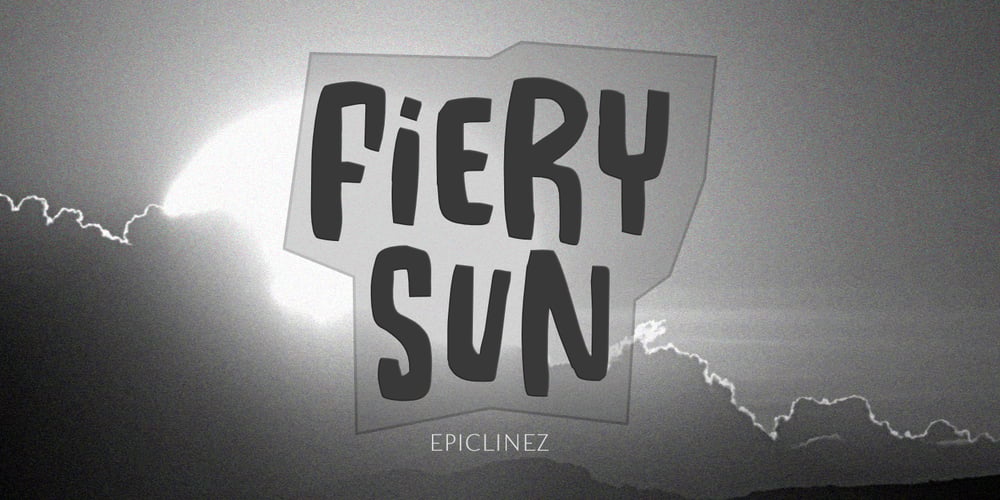
Fiery Sun
Fiery Sun font
Fiery Sun Font Family was designed by Aldy Sidik and published by Epiclinez. Fiery Sun contains 1 styles and family package options. Fiery Sun is a fun and bold display font. Carefully handcrafted to fit most of your projects, this font is going to become your favorite in no time! Its organic-style is suitable for creating any branding, product packaging, quote, t-shirt, label, poster, logo that you wish to develop.Fiery Sun contains 194 glyphs. Supporting more than 66 languages, from English to Zulu. I hope you enjoy it. Thanks